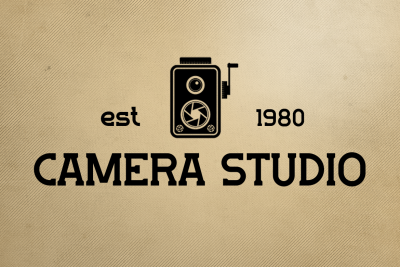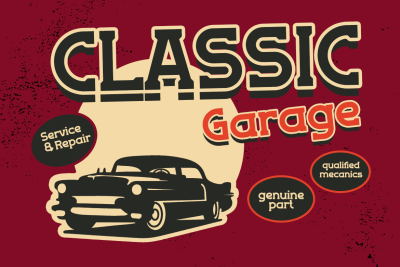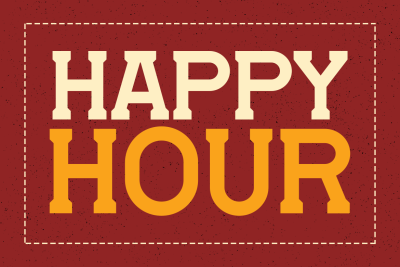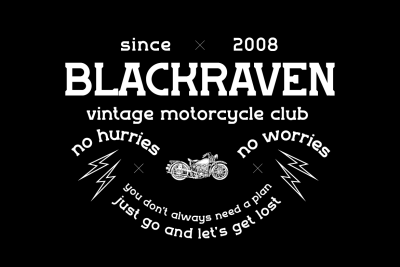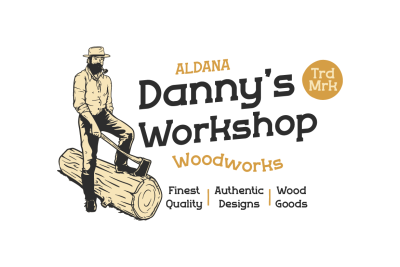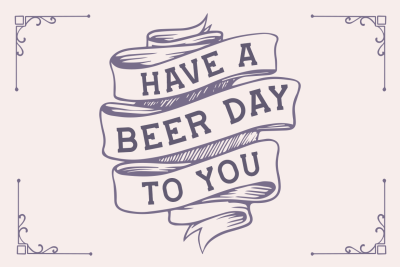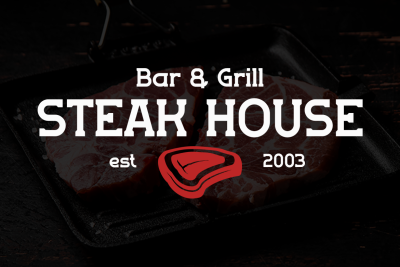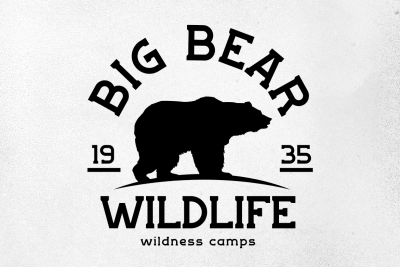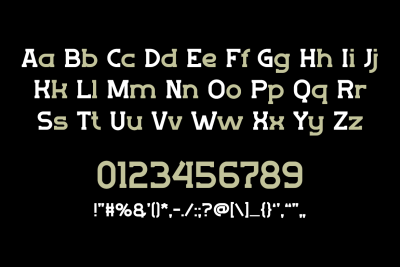
Western Font HITMAN is a bold and classic display typeface that captures the timeless aesthetics of the Old West. Its strong, blocky characters and angular details give it a commanding presence in any design. This font is ideal for projects that need to exude confidence and authority. HITMANโs rustic charm, paired with subtle vintage nuances, makes it perfect for branding, logos, signage, and posters.
In addition to its bold structure, HITMAN features clean and sharp lines, ensuring readability even from a distance. The font balances ruggedness with sophistication, making it suitable for both modern and retro-themed designs. Whether you need a bold statement piece or a rustic touch, HITMAN delivers impact and personality. Its classic appeal guarantees a design that stands out while evoking strength and heritage.
HITMAN is perfect for designers, marketers, and businesses who want to add a bold Western theme to their projects. It works especially well for hospitality, entertainment, and retail industries. For instance, steakhouses, restaurants, or bars can use HITMAN to create menus, signage, and promotional materials with a classic Western vibe.
This font is also ideal for event promotions such as rodeos, country fairs, or music festivals. Apparel brands with a rustic or outdoor focus can apply HITMAN to labels, logos, and packaging. Digital creators can use it for eye-catching social media graphics, YouTube thumbnails, and retro-themed merchandise.
HITMAN is an excellent choice for book covers, especially for adventure or Western fiction genres. Wedding planners working on country-style weddings can incorporate it into invitations and signage. Additionally, theme parks, escape rooms, and entertainment venues can use this font to enhance their immersive storytelling.
Overall, Western Font HITMAN is for anyone looking to make a bold statement while embracing the rugged charm of the Old West. Its versatility and powerful style make it a valuable tool for diverse creative projects.